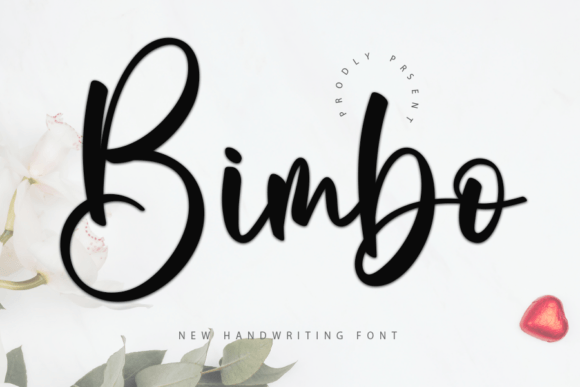
Bimbo Font
In the realm of fonts, where creativity and expression dance, there exists an enchanting creation known as Bimbo Font, a script font that is not merely a collection of letters but a portal to a world of elegance, charm, and sophistication. Born from the visionary Plafont store, Bimbo Font is a captivating and distinctive handwritten font adorned with a classy, elegant, and modern aura.
With its sweeping strokes, playful curves, and a touch of whimsy, Bimbo Font is a true testament to the artistry of typography. Each letter dances across the page, carrying with it a sense of timeless beauty and understated luxury. Its delicate hairlines and subtle flourishes add a touch of refinement and sophistication, making it the perfect choice for those seeking a touch of elegance in their designs.
Whether you're a seasoned designer or a creative enthusiast, Bimbo Font will ignite your imagination and elevate your projects to new heights. With its versatility and boundless charm, it lends itself effortlessly to a multitude of applications, from logos and branding to invitations, stationery, and wedding designs. Unleash your creativity and watch as your designs blossom with a touch of Bimbo Font's magic.
Immerse yourself in the world of Bimbo Font and let your designs speak volumes. Its timeless aesthetics and captivating presence will leave a lasting impression on your audience, ensuring that your creations stand out from the crowd. Embrace the allure of Bimbo Font and embark on a journey of visual enchantment.